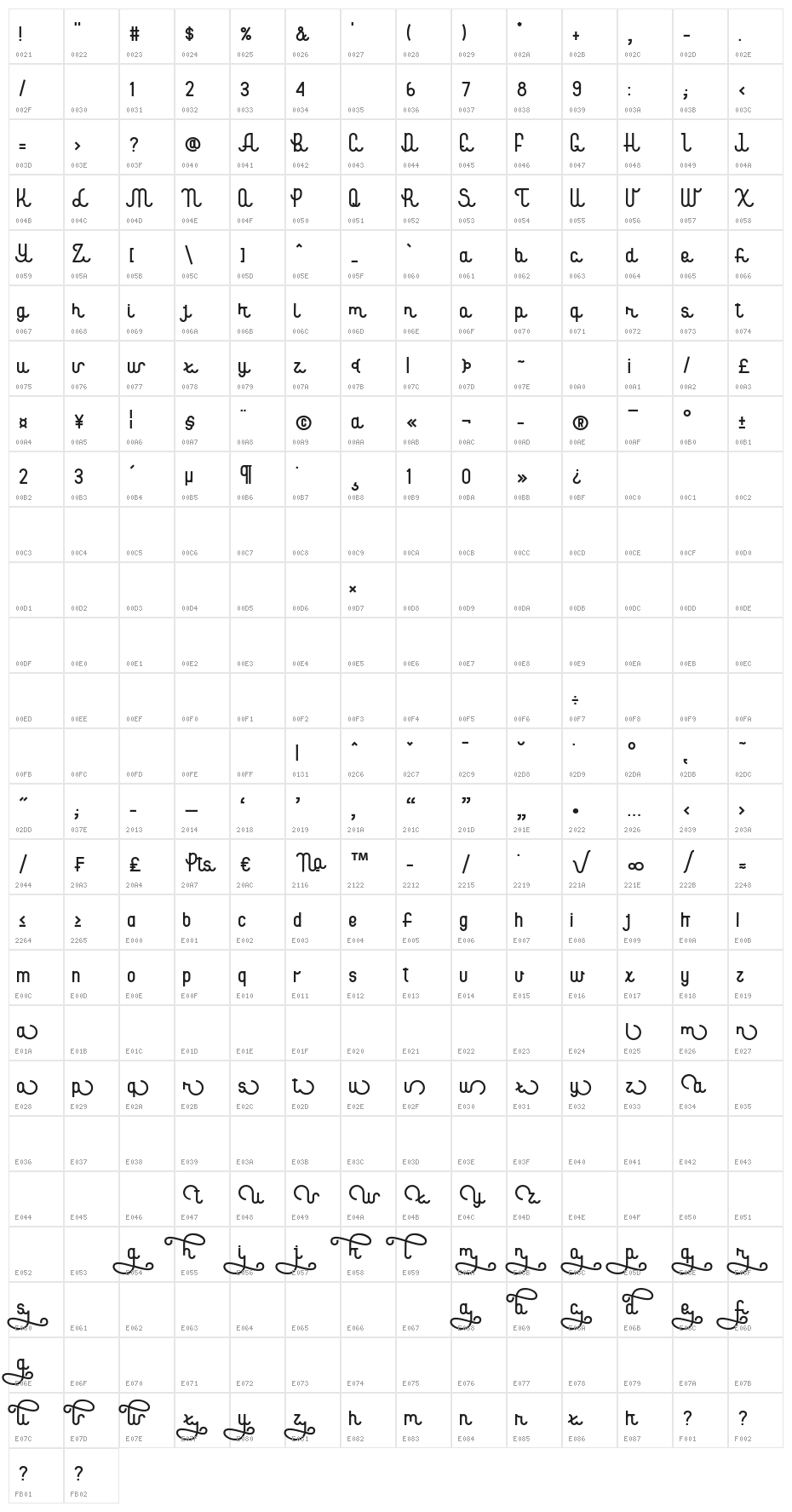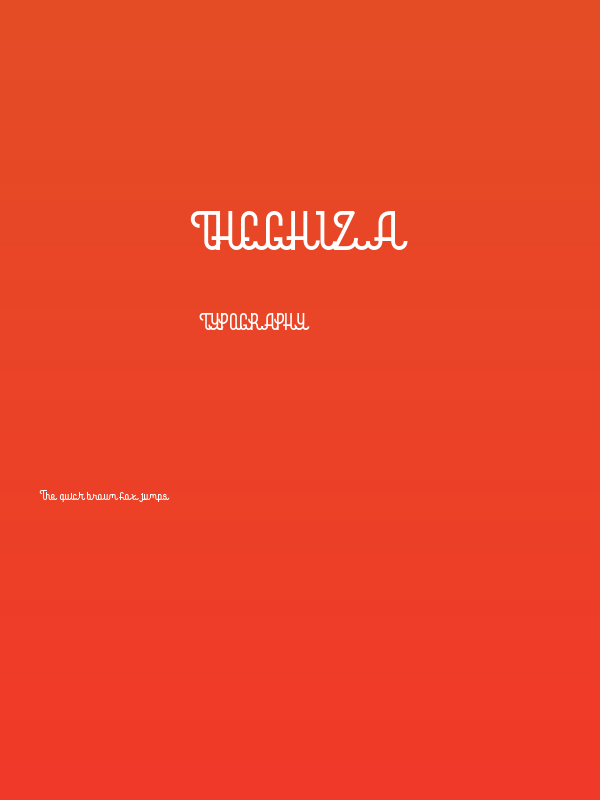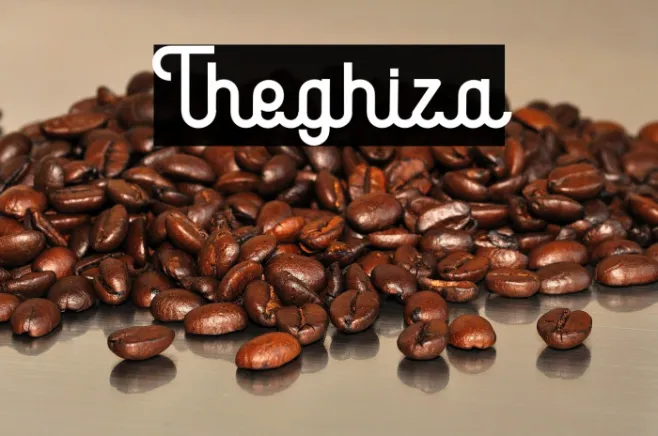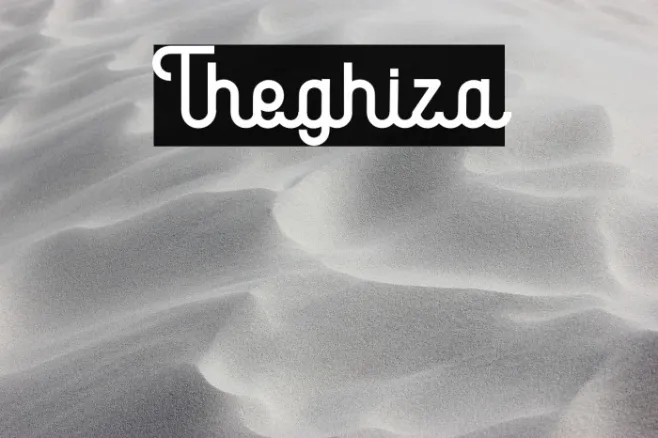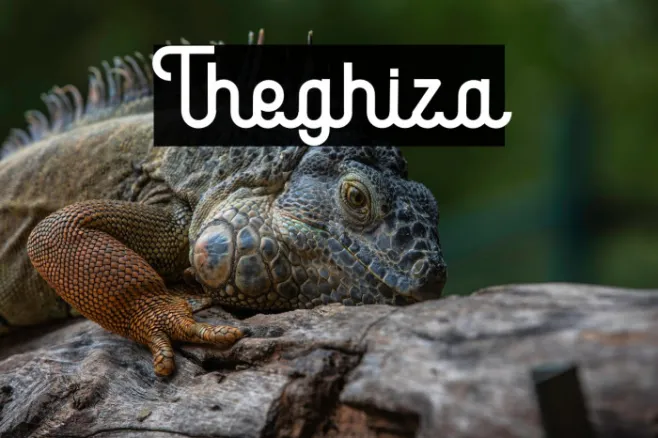
Theghiza Font
Theghiza Description
This font features a unique and playful design with a continuous, flowing style that connects each letter seamlessly. The uppercase letters are bold and prominent, with a whimsical loop at the bottom of each character, adding a touch of elegance and creativity. The lowercase letters maintain the same flowing style, creating a harmonious balance between the two cases. Numbers are clear and easy to read, with a consistent weight that matches the letters. Special characters are included, maintaining the same playful and cohesive design. This font is ideal for projects that require a touch of fun and creativity, such as children's books, playful branding, or artistic posters.
| Overall Style | Playful, Creative |
| Proposed Projects | Ideal for children's books, playful branding, artistic posters, and creative invitations. |